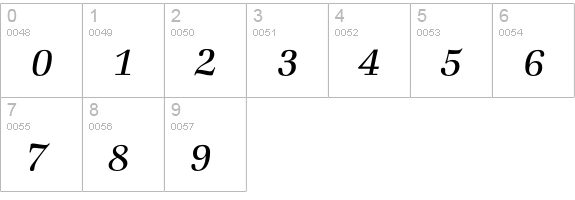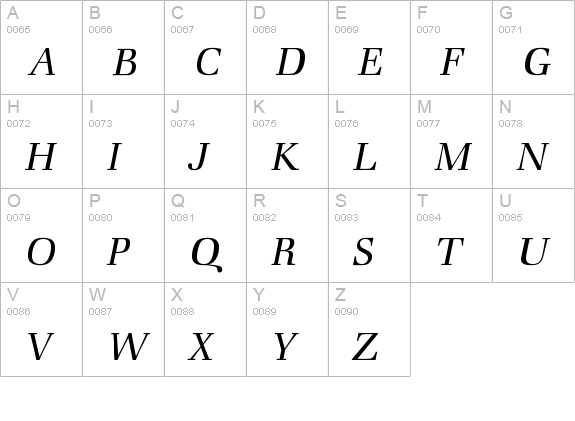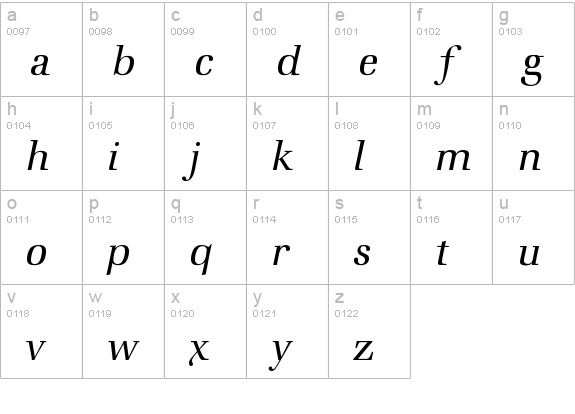
ZapfBookEF-LightItalic is a refined and elegant font that exudes sophistication and style. With its sleek and slender letterforms, this typeface is perfect for adding a touch of class to any design project. The italicized version of ZapfBookEF-Light brings a sense of movement and grace to the text, making it ideal for emphasis and emphasis. What sets ZapfBookEF-LightItalic apart is that it is not only visually appealing but also free to use. Whether you're working on a professional project or a personal one, you can freely download this font from FontsMarket.com. Take advantage of this opportunity to enhance your designs with the timeless beauty of ZapfBookEF-LightItalic.